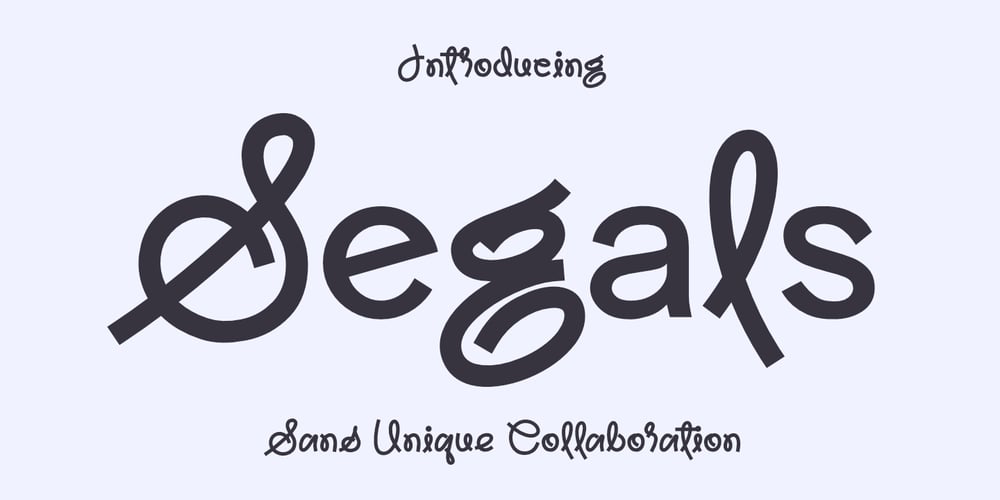
Segals Font Family was designed by Saiful Anwar and published by Sealoung. Segals contains 1 styles and family package options. Segals is a cutting-edge font with sleek curves and a contemporary design. This font is designed to elevate your project with a sophisticated and captivating look.Segals is ideal for a wide range of creative applications, including logos, advertisements, photography watermarks, stationery, branding projects, magazine layouts, invitations, corporate identities, product designs, labels, business projects, and many other endeavors that require a touch of elegance.What you’ll receive: Standard Glyphs Numbers and Functional Characters Unique Alternates Compatible with both PC & Mac Easy installation process Usable in Adobe Illustrator, Adobe Photoshop, Adobe InDesign, and even Microsoft Word Multilingual support for languages such as Afrikaans, Albanian, Asu, Basque, Bemba, Bena, Breton, Chiga, Cornish, Dutch, English, Estonian, Filipino, Finnish, Friulian, Galician, Gusii, Indonesian, Irish, Italian, Kabuverdianu, Kalenjin, Kinyarwanda, Luo, Luxembourgish, Luyia, Machame, Makhuwa-Meetto, Makonde, Malagasy, Manx, Morisyen, North Ndebele, Nyankole, Oromo, Portuguese, Quechua, Romansh, Rombo, Rundi, Rwa, Samburu, Sango, Sangu, Scottish Gaelic, Sena, Shambala, Shona, Soga, Somali, Spanish, Swahili, Swedish, Swiss German. Thank you for choosing Segals!We hope you enjoy using our font!